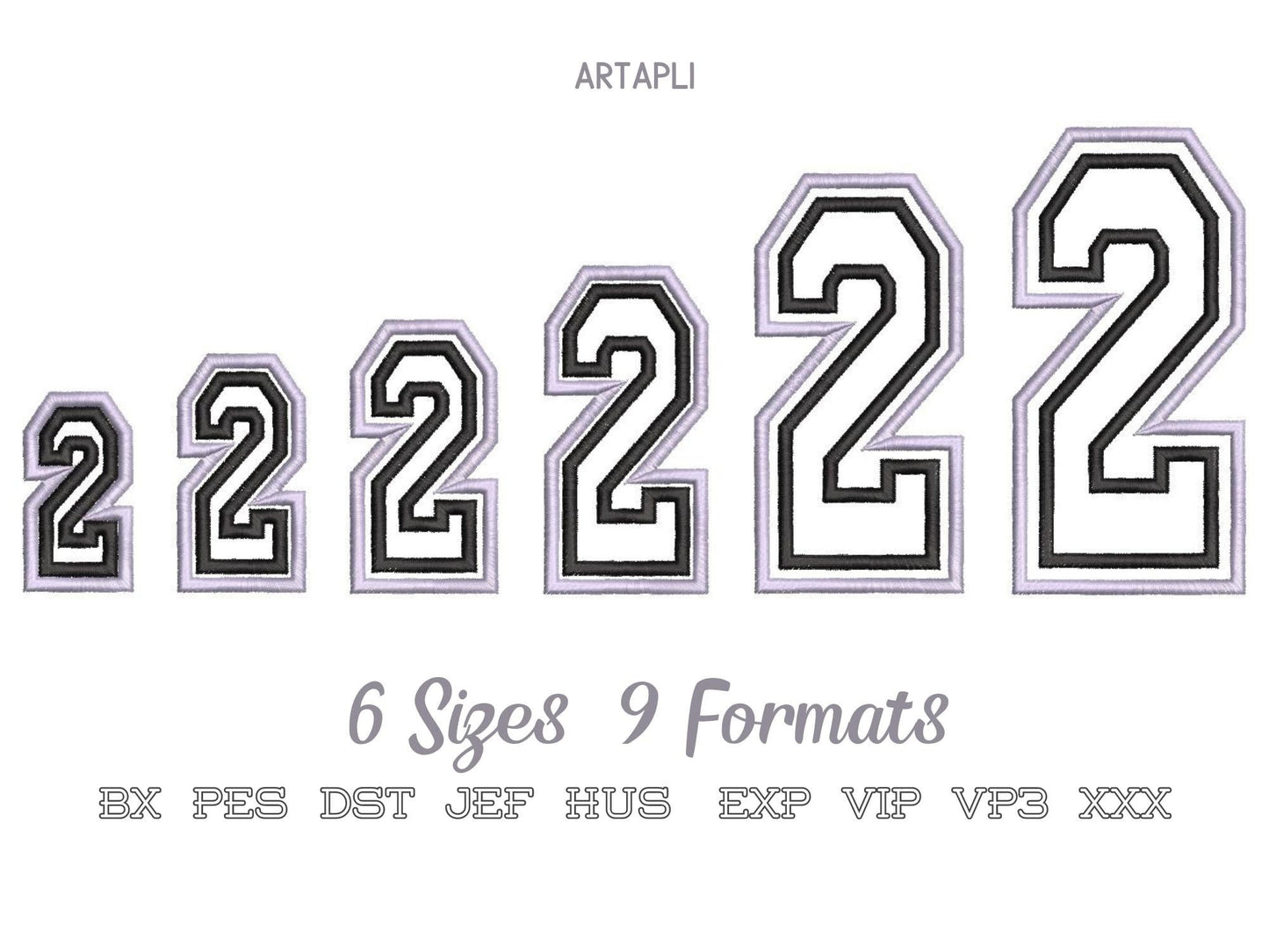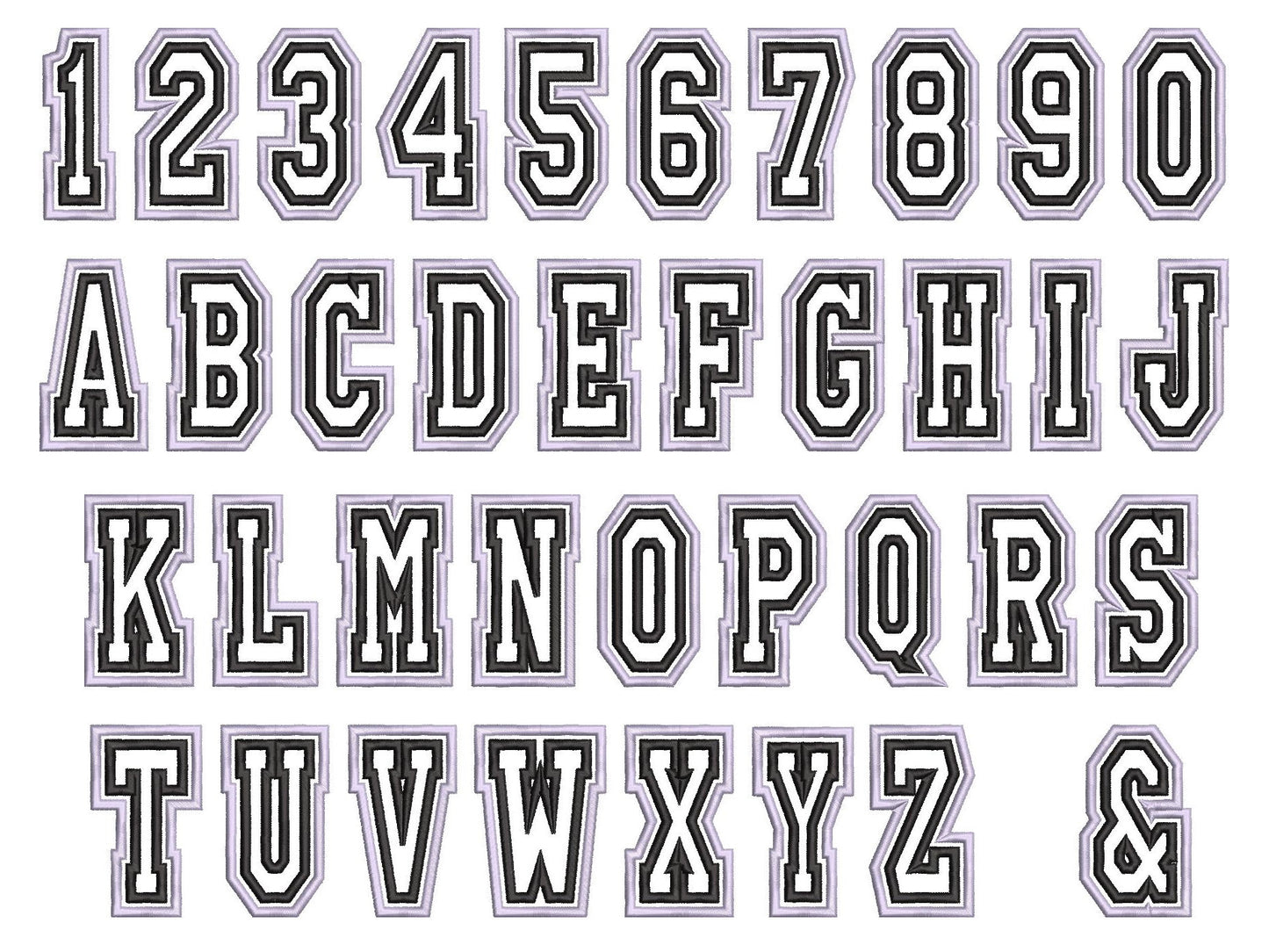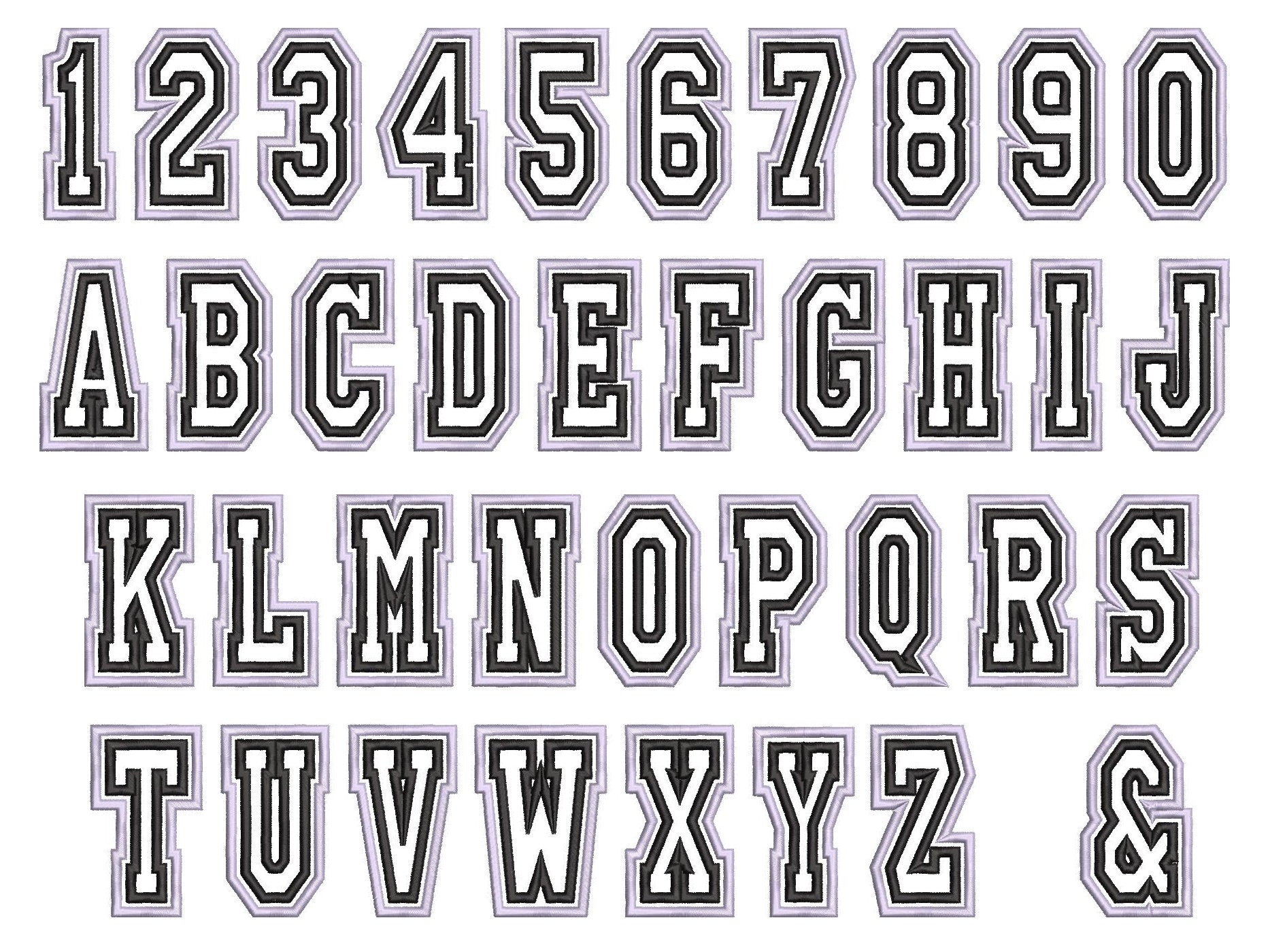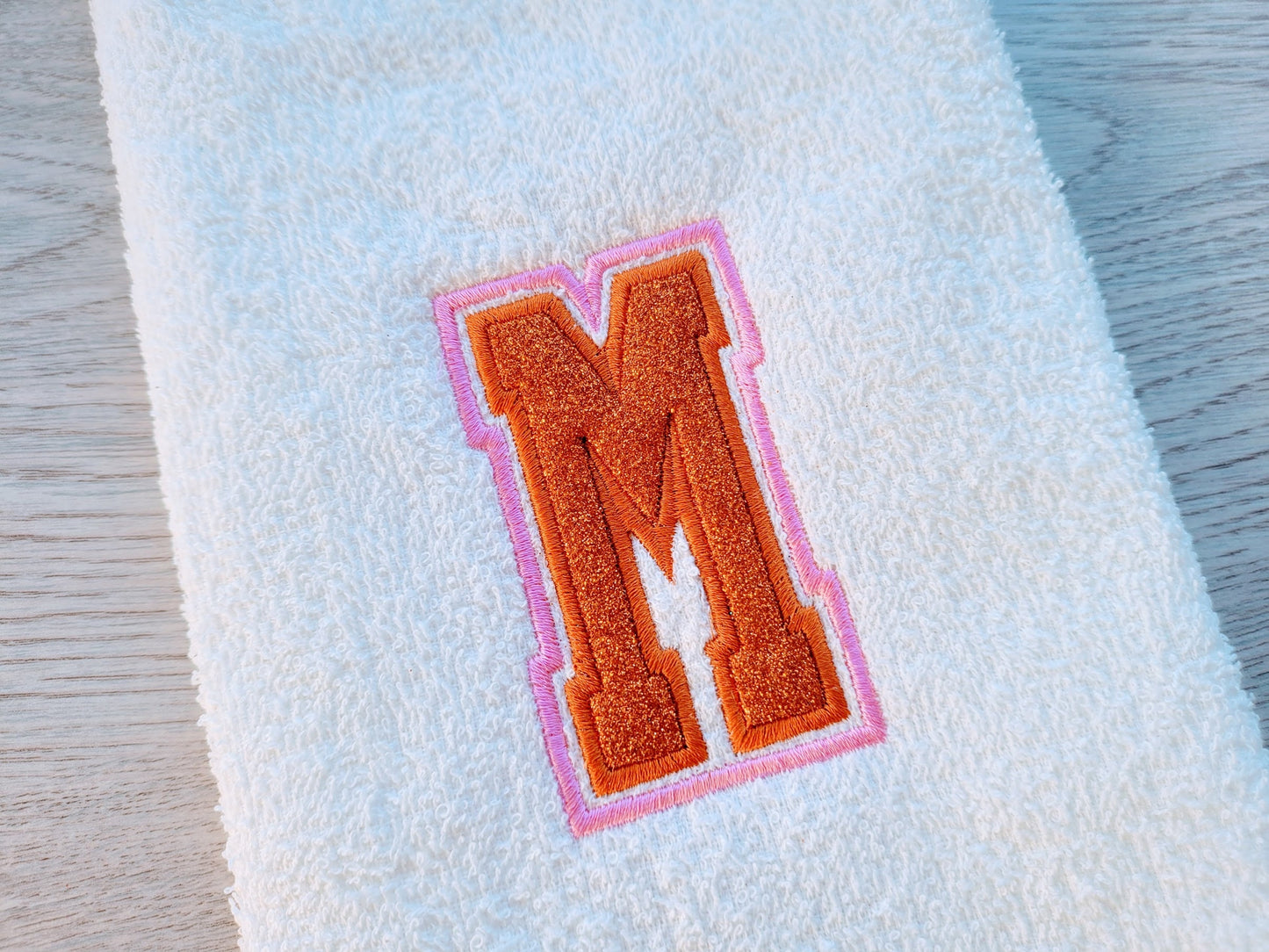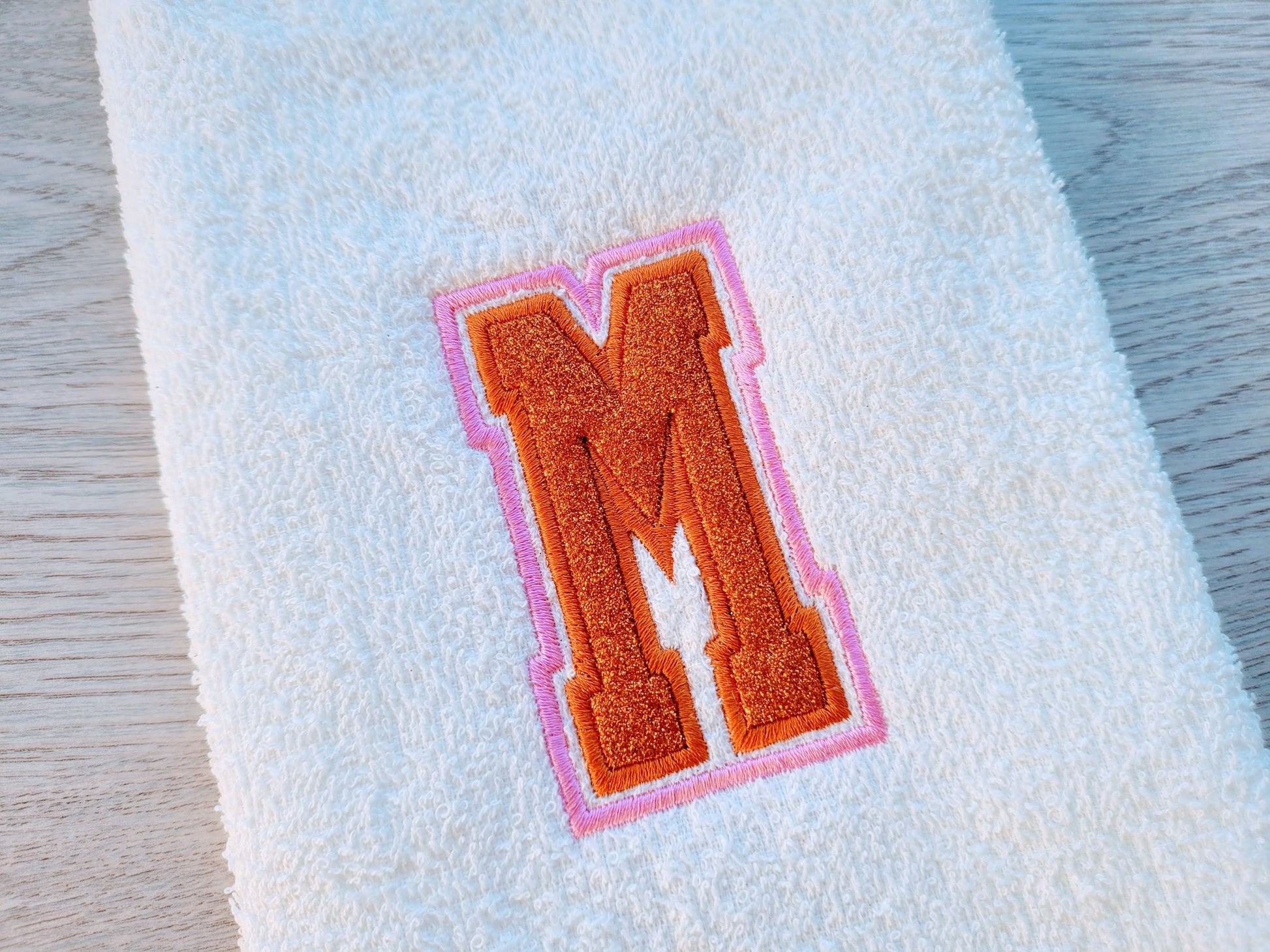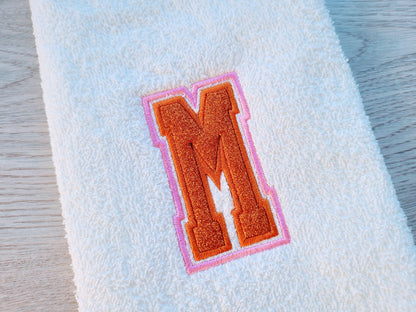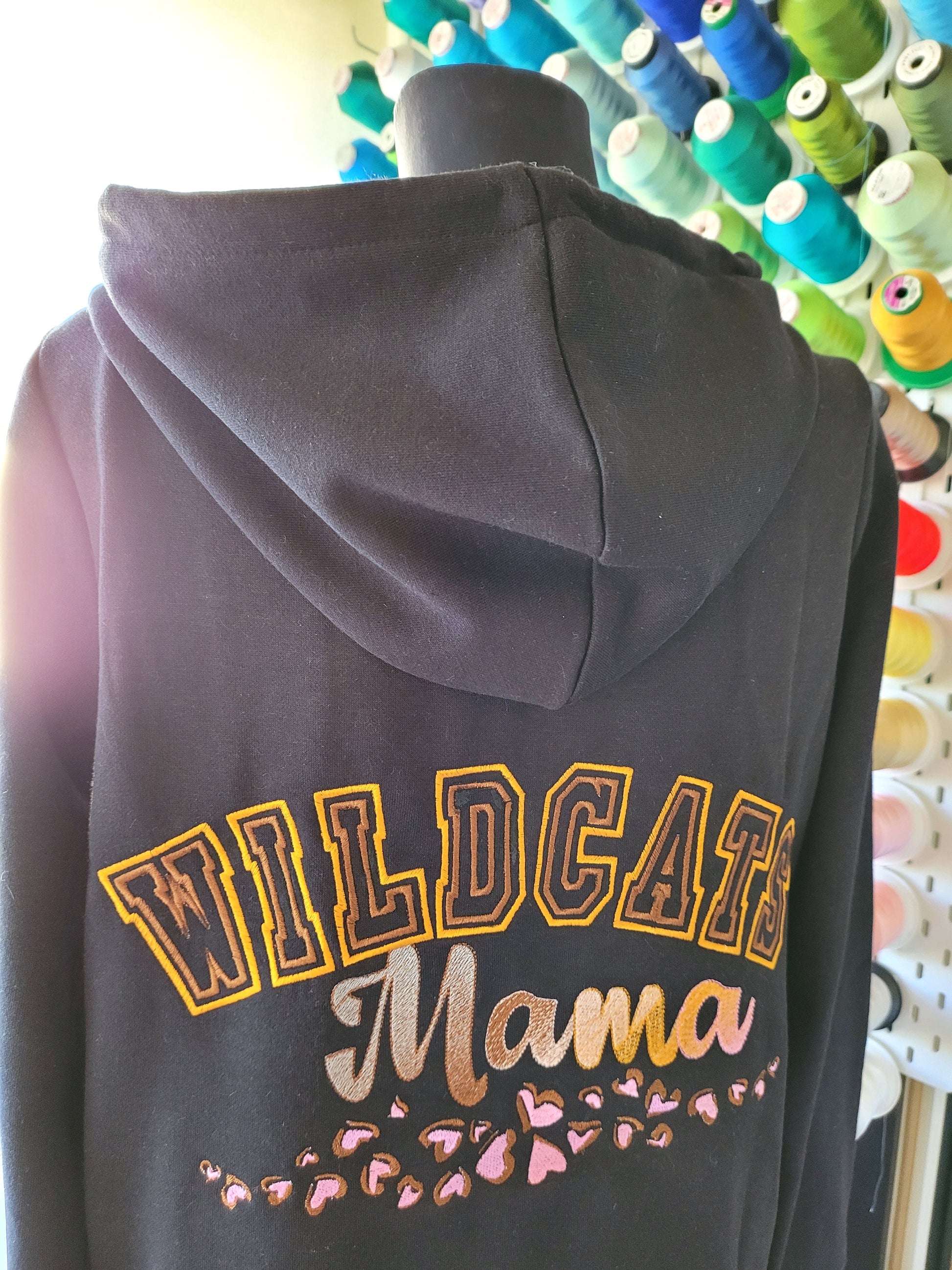
Or click to open the linkA thin, narrow athletic font with two applique layers. Made for team shirts, jerseys, hoodies and school spirit wear.
Uppercase letters A to Z, numbers 0 to 9 and an ampersand. Six sizes: 2, 2.7, 3, 3.8, 4.5 and 5 inches. Double applique with two wide satin outlines.